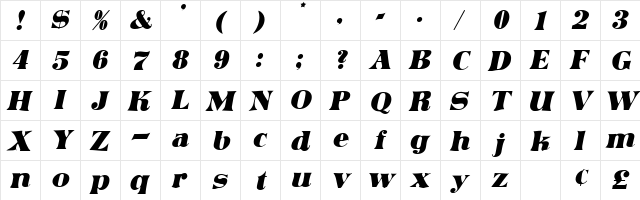
Peak Oblique
Design Context for Peak Typeface
Peak is a composed and adaptable typeface that performs quietly and consistently across a wide range of design contexts. The slanted form adds forward momentum and visual energy.
Pro Tip: Try Peak for annotation and caption copy alongside an upright companion — the contrast in angle creates a dynamic but ordered typographic system.